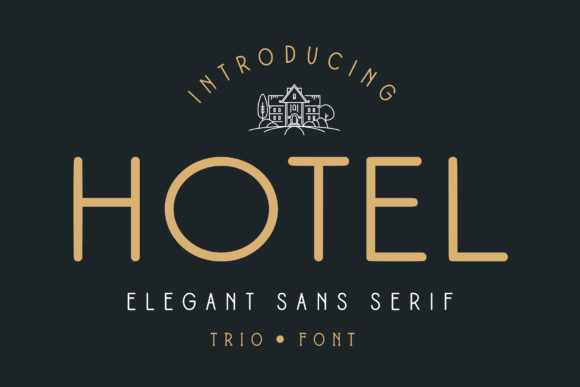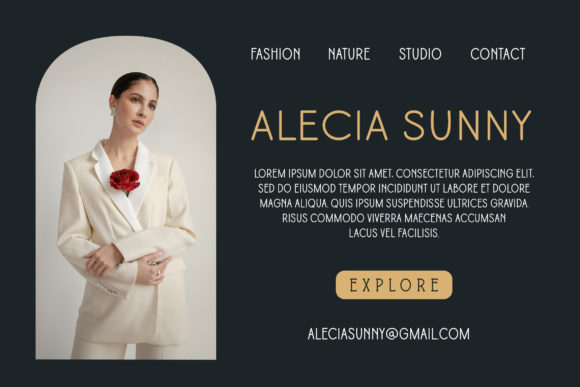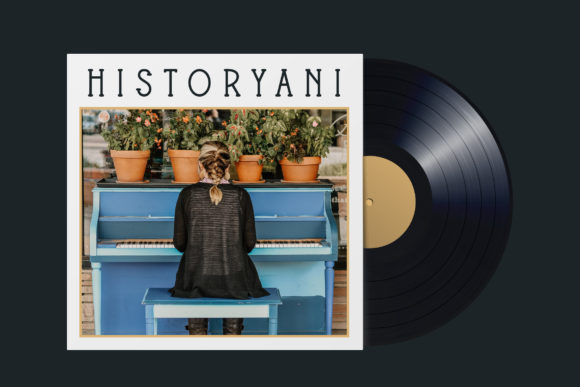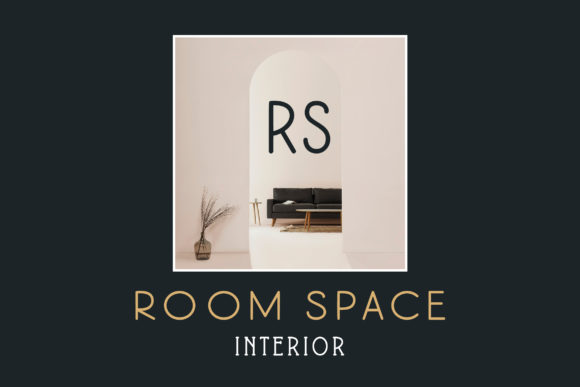
Hotel Font: An Elegant & Minimalist Sans Serif for Branding
About the Hotel Font
Elevate your designs with Hotel Font, a font that combines sophistication with readability. Hotel is a beautiful and versatile duo font (serif and sans serif). It can effortlessly be matched to a large set of projects, so add it to your creative ideas and notice how it makes them stand out!
Hotel’s elegant serif and clean sans-serif pair best in projects requiring a sophisticated yet approachable feel. Ideal applications include branding for upscale hotels (naturally!), restaurants, or boutique shops. It excels in headlines, logos, and short text blocks on marketing materials like posters or brochures. However, avoid using it for lengthy body text or UI elements; its refined aesthetic doesn’t lend itself well to extended readability.
Consider pairing the Hotel serif with a geometric sans-serif for a modern, balanced look, or use the sans-serif with a playful script for a touch of personality in invitations or packaging. A classic serif like Garamond could also complement Hotel’s serif, creating a more traditional yet still upscale feel.
The overall personality of Hotel is sophisticated and refined, conveying a sense of understated luxury and trustworthiness. Its versatility allows for both a classic and contemporary application, depending on the chosen pairing and context.
Hotel Font Usage Examples
Hotel Font Example